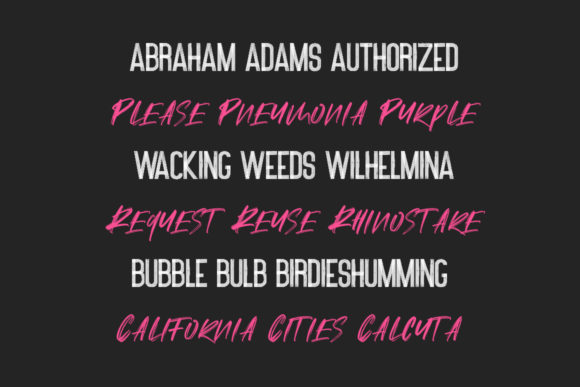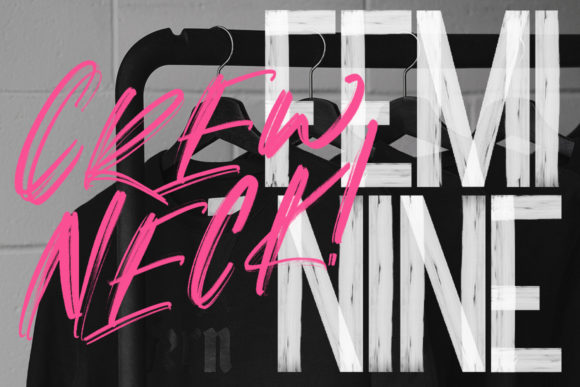
Chorus Font
db-ku.com - Script & Handwritten -- Chorus is a lovely and urban styled duo font (script and sans serif). No matter the topic, this font will be an incredibly asset to your fonts’ library, as it has the potential to elevate any creation.